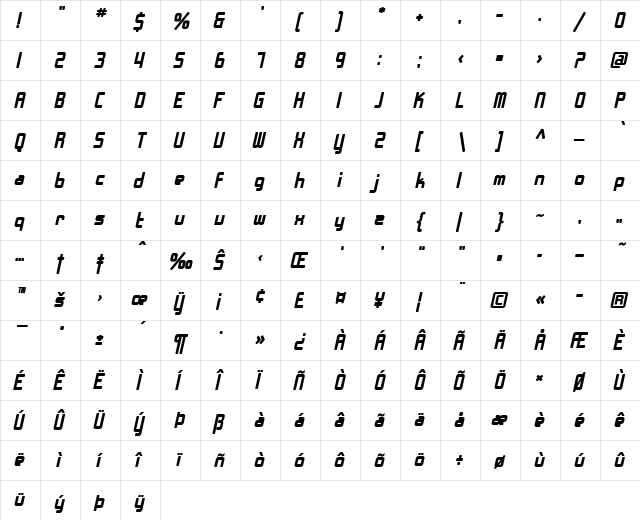
SF Chrome Fenders Bold Oblique
Design Context for SF Chrome Fenders Typeface
SF Chrome Fenders offers clean, dependable letterforms without strong stylistic allegiance, making it a practical choice for designers who need flexibility. The slanted form adds forward momentum and visual energy. Its bold stroke weight gives it real presence on the page.
Pro Tip: Try SF Chrome Fenders for annotation and caption copy alongside an upright companion — the contrast in angle creates a dynamic but ordered typographic system.